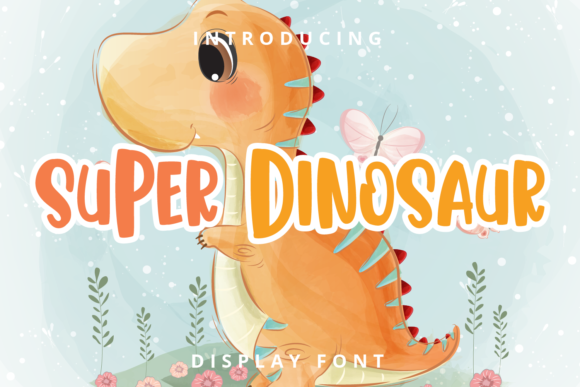
Introducing Super Dinosaur Font, the embodiment of fun and playfulness, meticulously crafted by the talented designers at Planetz Studio. This display font is a visual masterpiece, captivating hearts with its bold, chunky characters that exude warmth and friendliness.
Adorned with a sprinkle of creativity, Super Dinosaur Font transcends the ordinary, inviting you to embark on a whimsical journey through the world of letters. Its unique charm makes it the perfect choice for a diverse range of projects, from children's books that ignite imaginations to branding initiatives that demand attention.
Picture this: the cover of a children's book adorned with Super Dinosaur Font's playful characters, beckoning young readers into a realm of adventure and wonder. Each letter dances across the page, inviting little hands to explore the magical world within.
Or envision a vibrant wall mural painted with Super Dinosaur Font's bold strokes, transforming dull walls into captivating canvases of creativity. Its chunky letters command attention, drawing eyes and sparking conversations.
The versatility of Super Dinosaur Font extends beyond the physical realm, gracing social media posts with its eye-catching presence. Its distinct style adds a touch of personality to your digital communications, ensuring your messages stand out in a sea of uniformity.
With Super Dinosaur Font, your designs take on a life of their own, captivating audiences with their playful charm. It's the perfect font for those seeking to add a touch of whimsy and creativity to their projects.
Embrace the world of Super Dinosaur Font and unleash your inner child. Let its playful spirit infuse your designs with joy, leaving a lasting impression on your audience.